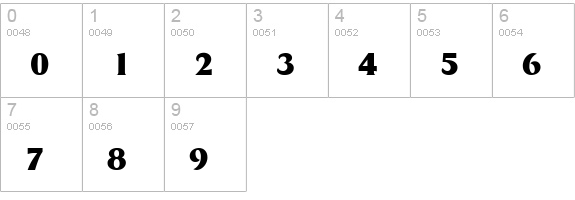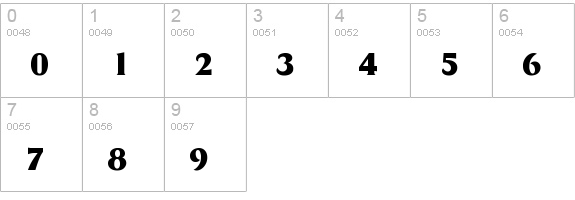
Dynamic Regular Font Details
Dynamic Regular is the standard, neutral variant in the Dynamic typeface family \xE2\x80\x94 well suited to general body text, paragraphs, and standard typographic work.
Dynamic Regular font is a versatile typeface that exudes modernity and sophistication. Its clean lines and balanced proportions make it perfect for a wide range of design projects, from branding to editorial layouts. The font's dynamic and energetic appearance adds a touch of flair to any text, making it stand out with a sense of style. What's even better is that Dynamic Regular font is available for free download at FontsMarket.com. This means you can easily access this high-quality typeface to enhance your creative projects without any cost. Don't miss out on the opportunity to elevate your designs with the sleek and stylish Dynamic Regular font – download it today and start creating stunning visuals!